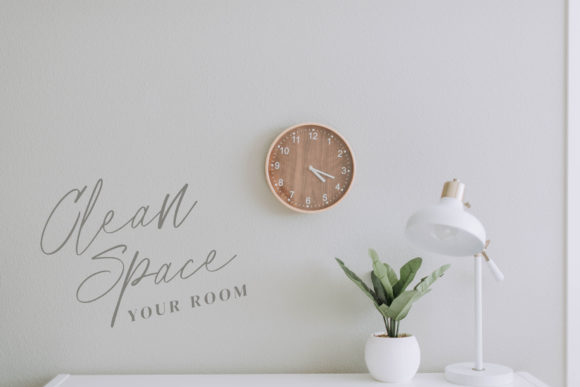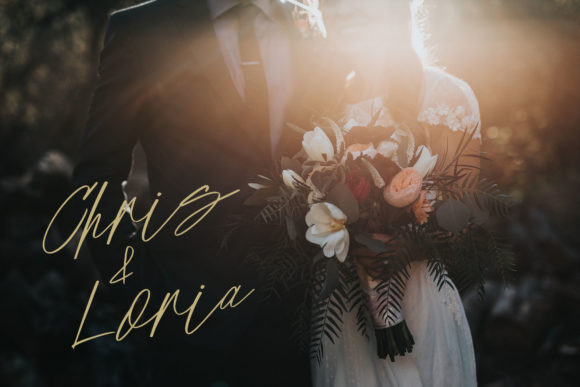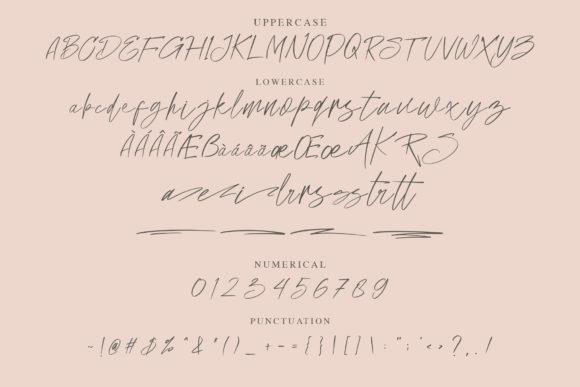
Introduction to Patrice Sephia Font
Have you ever stumbled upon a design that perfectly captures the essence of your creative vision? For many designers, this moment is a rush of excitement and a sense of satisfaction. It’s the moment when all the pieces fall into place, and your idea is brought to life in a way that’s both beautiful and effective. This is exactly what the Patrice Sephia Font aims to achieve – a perfect blend of elegance and versatility that can elevate any design project.
As a valuable design resource, Patrice Sephia Font offers a high-quality, feminine aesthetic that’s perfect for a wide range of creative projects, from wedding invitations and logo designs to shirt designs and more. With its transparent background and PUA-encoded features, this font makes it easy to access all the glyphs and swashes you need to create stunning visuals.
Key Features of Patrice Sephia Font
- High-quality design resource ideal for creative projects, offering a unique and elegant aesthetic.
- Includes a large character set, covering a wide range of languages and characters.
- Designed with a high resolution (up to 300 DPI), ensuring crisp and clear typography in print and digital applications.
- Perfect for designers seeking a sophisticated and stylish font to elevate their creative project.
Honest Review: Patrice Sephia Font
I recently had the chance to work with the Patrice Sephia Font, and I must say it’s been a game-changer for my creative projects. This font is perfect for those who want to add a touch of elegance and sophistication to their designs.
- High-quality design: The Patrice Sephia Font is well-crafted, with smooth lines and a seamless texture.
- Wide range of applications: From logos to typography-based artwork, this font is versatile and adaptable.
- Limited character set: The font only includes a basic set of characters, which may not be ideal for complex projects.
- Transparent background: While the font’s transparent background is a nice feature, it can sometimes make it difficult to work with.
Overall, I’m impressed with the Patrice Sephia Font. It’s a great resource for designers who want a high-quality font without breaking the bank. While it may have some limitations, it’s still a solid choice for any creative project.
Introduction to Patrice Sephia Font
The Patrice Sephia Font is a high-quality design resource ideal for creative projects. Its elegant and sophisticated style makes it perfect for various applications, including branding, advertising, and editorial content.
Getting the Most Out of Patrice Sephia Font
To get the most out of the Patrice Sephia Font, consider the following tips:
- Use the font on a transparent background to create a clean and modern look.
- Pair the font with a high-quality image or graphic to add depth and interest to your design.
Common Use Cases for Patrice